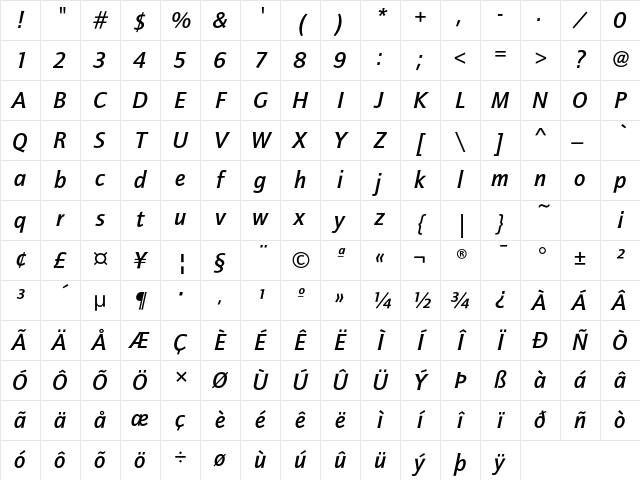
QuaySansEF MediumItalic
Style: MediumItalic
QuaySansEF Family
QuaySansEF MediumItalic
Complete QuaySansEF MediumItalic glyph index. Displaying only characters natively supported by QuaySansEF MediumItalic font.
Design Context for QuaySansEF
QuaySansEF is a composed and adaptable typeface that performs quietly and consistently across a wide range of design contexts. The slanted form adds forward momentum and visual energy.
Pro Tip: Use QuaySansEF for emphasis, pull quotes, and subheadings where its slanted energy can add rhythm to the layout.